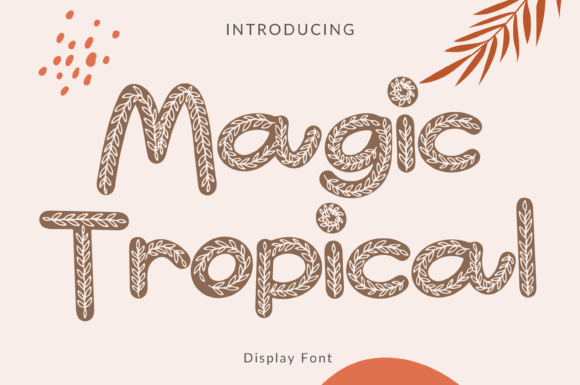
Magic Tropical Font
Step into a creative oasis with Magic Tropical Font – the ultimate decorative handwritten font that will ignite your imagination and leave a striking impression. With its captivating curves and playful spirit, Magic Tropical is not just a font; it's an invitation to let your creativity soar.
Whether you're crafting a captivating resume, enchanting invitations, or whimsical social media posts, Magic Tropical has the charm to elevate your words. Its versatility knows no bounds, adapting seamlessly to a myriad of projects. Picture your resume adorned with this captivating font, instantly capturing the attention of potential employers and leaving an unforgettable mark. Or envision your wedding invitations blooming with elegance, carrying the promise of a joyous celebration.
Beyond its functionality, Magic Tropical possesses an undeniable emotional power. It evokes a sense of wonder and enchantment, inviting you to embrace your creativity and share your unique voice. Each character dances across the page, carrying a touch of magic and a dash of whimsy that will captivate your audience.
With Magic Tropical Font, you're not just downloading a font; you're unlocking a gateway to creative expression. Its enchanting allure will transform your words into captivating works of art, leaving a lasting impact on all who behold them. Immerse yourself in the world of Magic Tropical and let your creativity bloom.